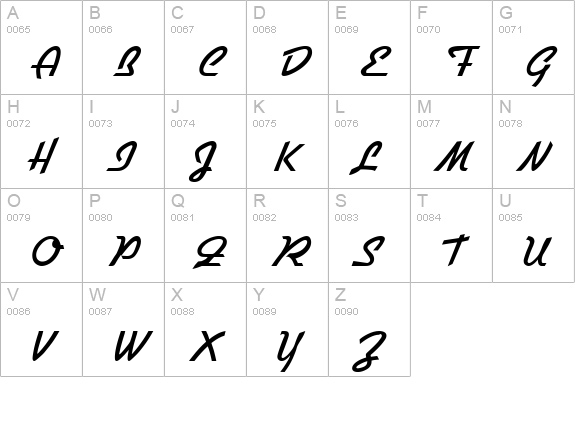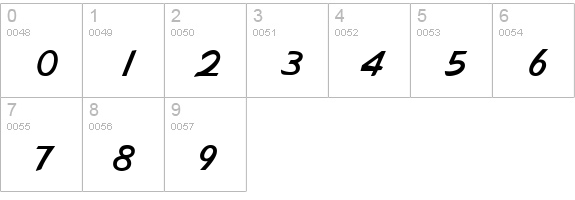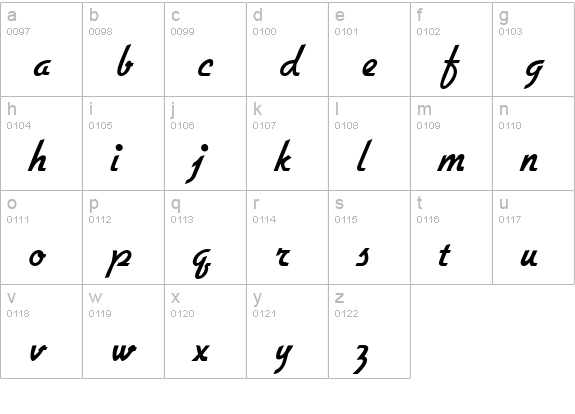
Introducing Diner font, a delightful and nostalgic typeface that exudes a charming retro diner aesthetic. This quirky font is perfect for adding a touch of vintage flair to any design project, whether it be menus, posters, or branding materials. With its playful curves and bold lettering, Diner font captures the essence of classic American diners from the mid-20th century. And the best part? Diner font is completely free to download at FontsMarket.com! Now you can easily add a fun and unique twist to your designs without breaking the bank. Don't miss out on this fantastic opportunity to enhance your projects with the whimsical charm of Diner font. Download it today and let your creativity shine!